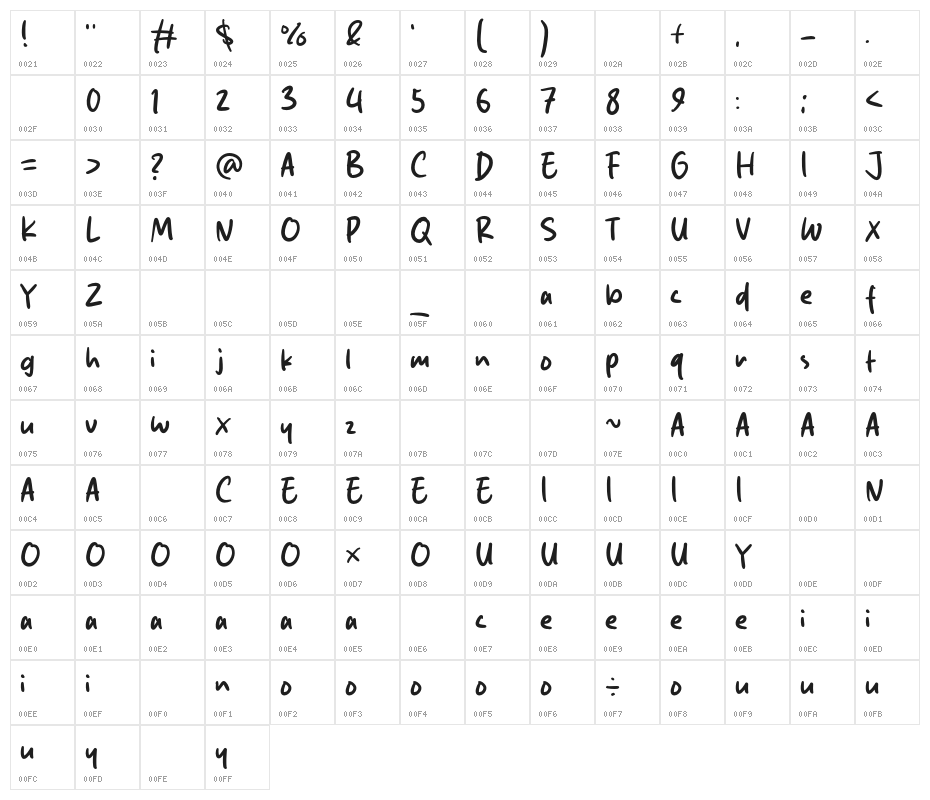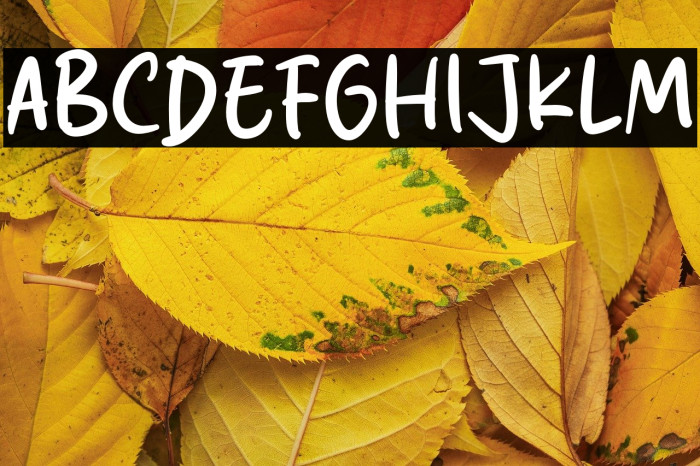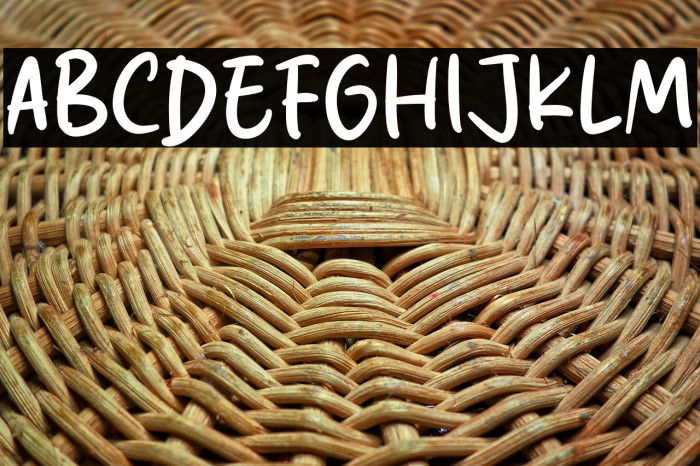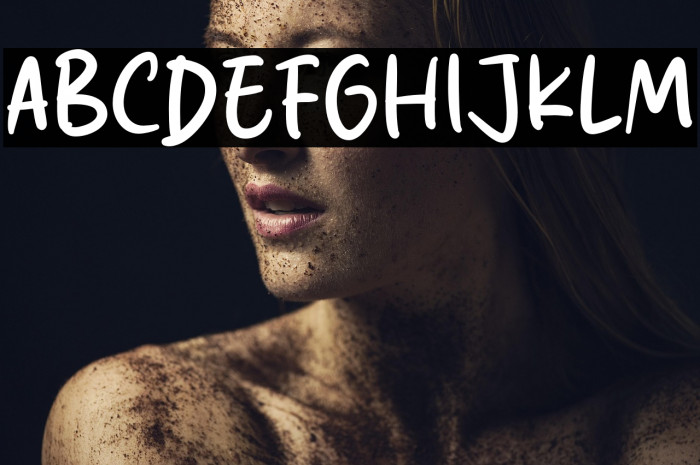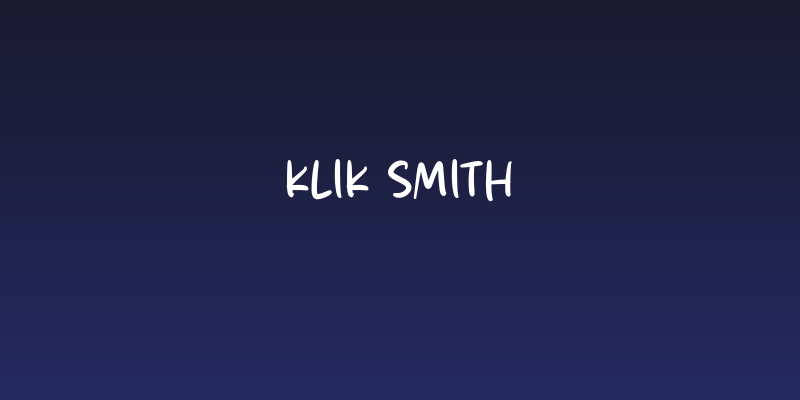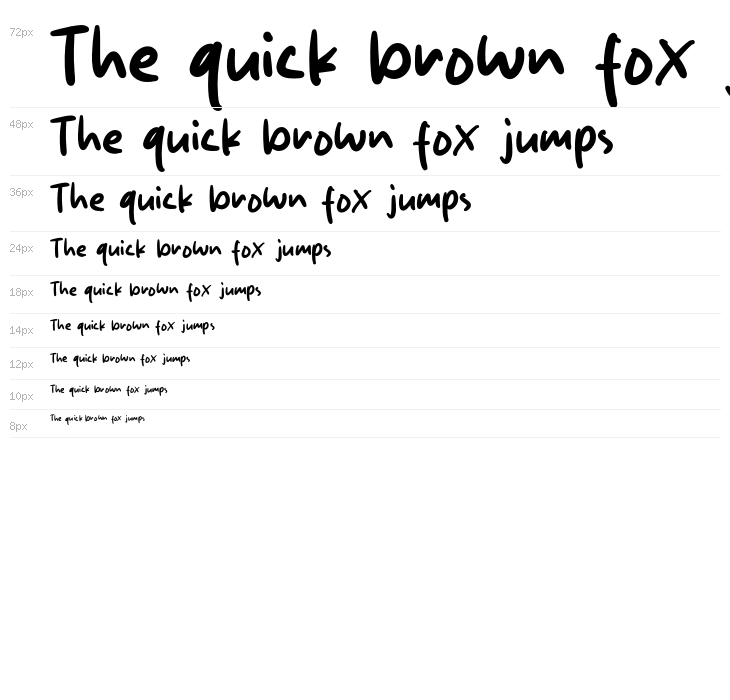
Klik Smith Font
Klik Smith Description
A playful and casual handwritten font with a natural flow and slightly irregular strokes.
| Use Case | Informal text, personal projects, creative designs. |
| Proposed Projects | Greeting cards, personal notes, informal branding. |